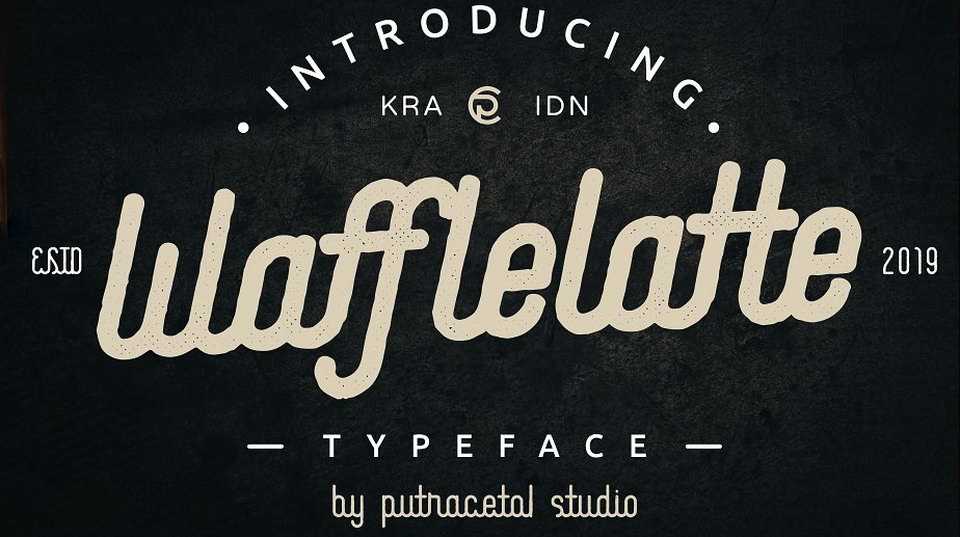
Download Waffle Latte font, a beautiful monoline script typeface. Great for making an awesome logo, branding, letterhead, invitations,quote, print, card clothing brand, vintage looks,and so much more!
Designer: PutraCetol Studio